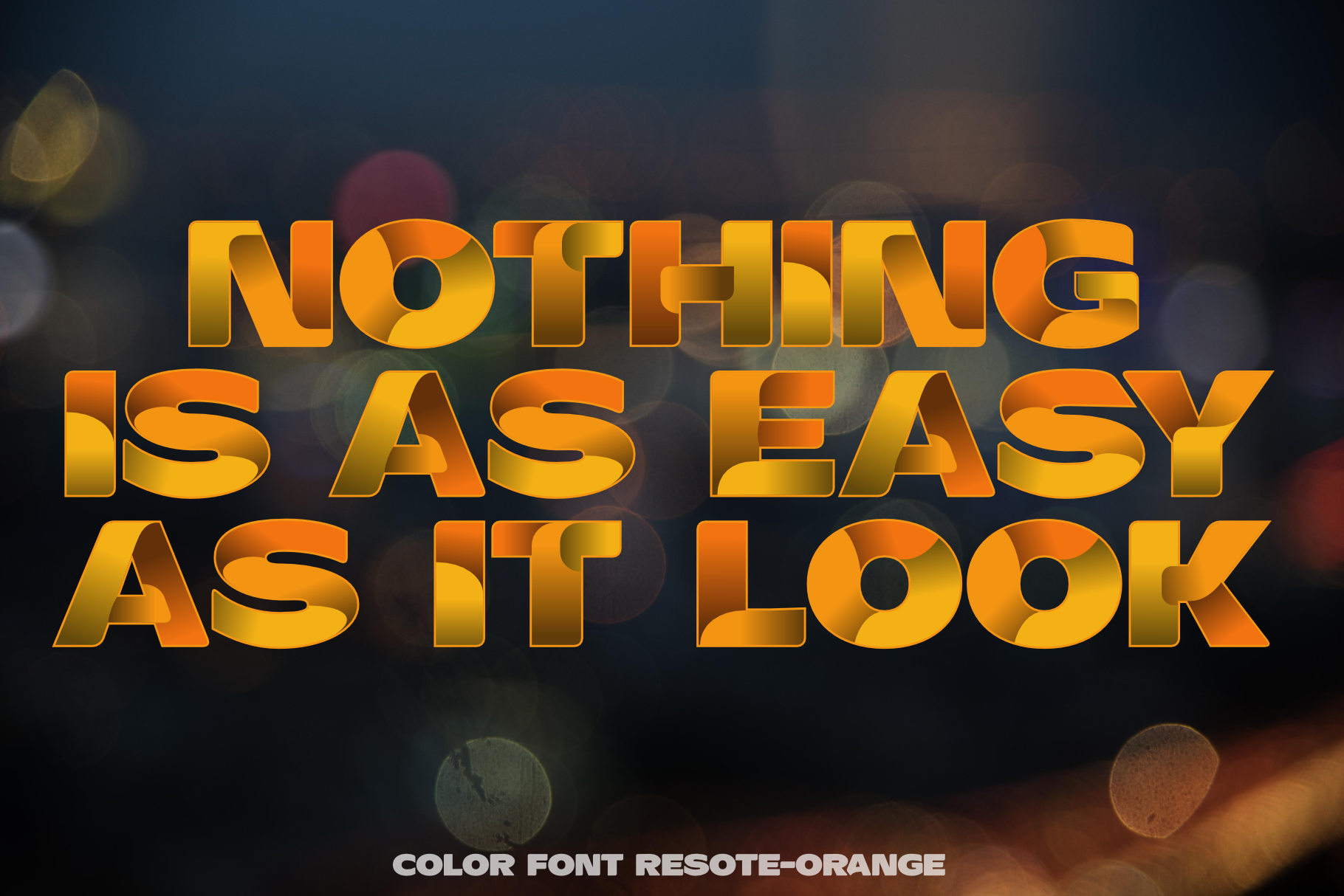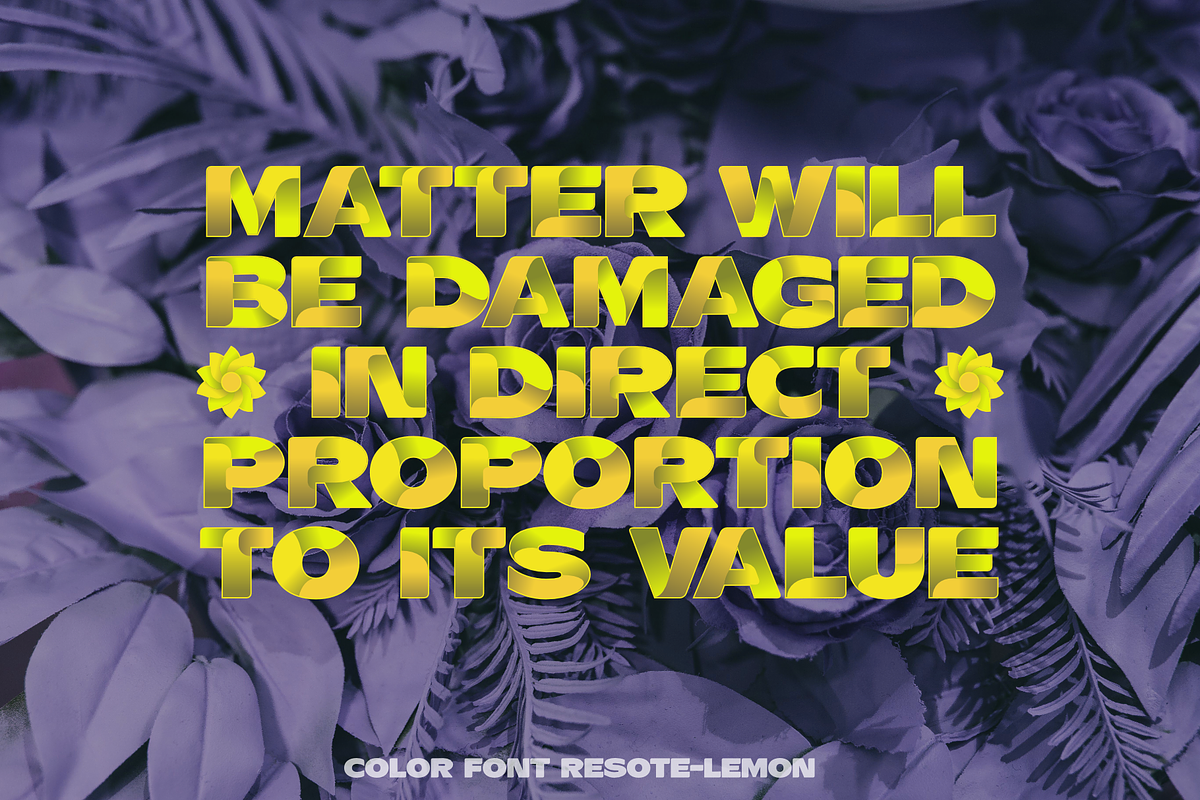
Color fonts ResotE-Fruits
Decorative, color fonts ResotE-Fruits: Apple, Coconut, Kiwi, Lemon, Lime, Orange and Plum in OpentypeSVG .ttf and .woff format with:
- Diacritic Glyphs
- Ligatures (small tip: use !A! and !B! for flower glyphs!)
- Contextual Alternates